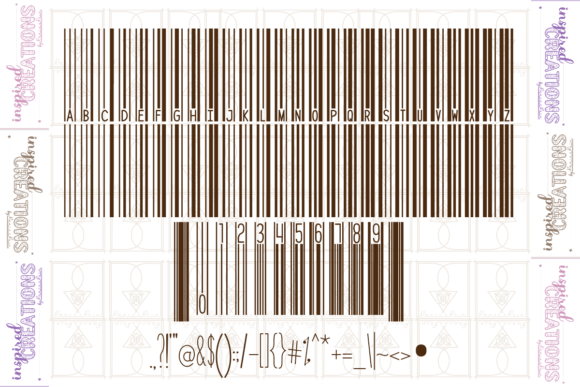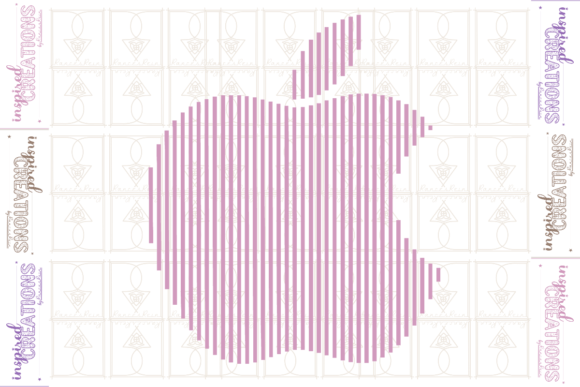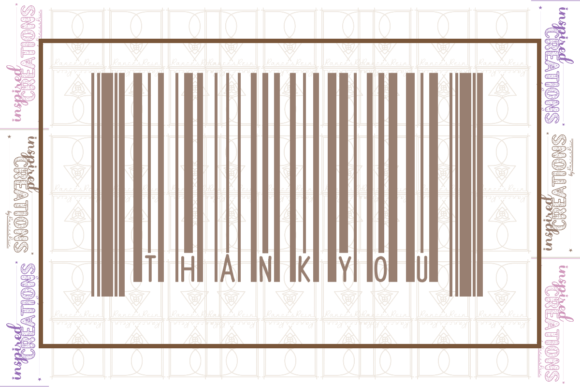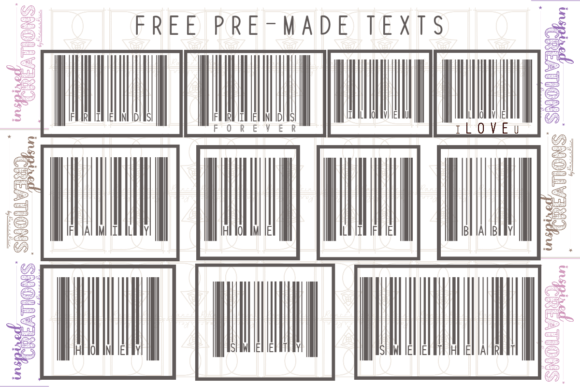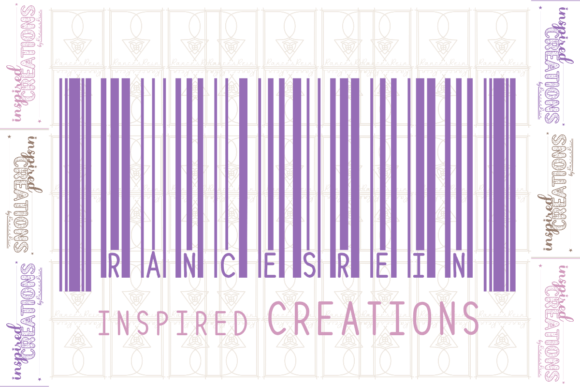
The Future of Typography: Introducing the Barline Font
Have you ever stared at a blank page, waiting for inspiration to strike? For designers, those moments can be the most thrilling – and intimidating. It’s in those instances that we find ourselves pushing the boundaries of creativity, seeking innovative ways to express ourselves and capture our audience’s attention. That’s exactly what the Barline Font does – it redefines the concept of typography, marrying cutting-edge design with the familiarity of the digital age.
Meet the Barline Font, a game-changing typeface that cleverly incorporates barcodes as letters. This edgy and unique design is perfect for modern and tech-savvy brands looking to stand out from the crowd. With its bold and attention-grabbing aesthetic, the Barline Font is an ideal choice for packaging and promotional materials, making it a valuable asset for designers seeking to make a lasting impression.
- Unique Characteristic: Features a distinctive barline design, which adds a touch of elegance and sophistication to any typographic project.
Barline Font Review
Overall, I’m quite impressed with the Barline Font. It’s a unique and stylish sans-serif typeface that’s perfect for modern designs.
- Unique Design: The Barline Font has a distinctive style that sets it apart from other sans-serif fonts. Its geometric shapes and angular lines give it a futuristic feel.
- Legibility: Despite its modern design, the font is highly legible, making it suitable for body text and headings.
- Font Weight: The font offers a range of weights, from light to bold, allowing designers to customize their designs to suit their needs.
- Lack of Italic Styles: The font only comes in a standard upright style, which can limit its versatility in certain design applications.
- No Support for Cyrillic or Greek Alphabets: The font only supports the Latin alphabet, which may be a limitation for designers working on international projects.
The Barline Font is a solid choice for modern designs, but it may not be the best option for projects that require a high level of customization or support for non-Latin alphabets. Nevertheless, its unique design and legibility make it a great addition to any designer’s toolkit.
The Barline Font is commonly used for:
- Music scores and notation
- Typography and design projects that require a unique, musical feel
- Creating a sense of movement and energy in text-based designs